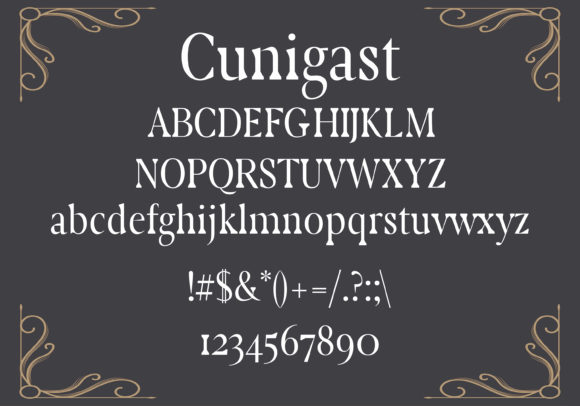
Cunigast Font: Elevate Your Designs with a Bold, Vintage Flair
Cunigast is a bold, vintage-styled display font that is making waves in the design community. This dazzling display font has the power to turn any creative idea into a standout, making it a must-have for designers and crafters looking to add a touch of elegance and sophistication to their work.
What is Cunigast Font?
Cunigast is a carefully crafted display font that embodies the essence of vintage typography. With its bold and eye-catching design, this font is perfect for creating stunning headlines, titles, and captions that demand attention. Its unique blend of classic and modern elements makes it an excellent choice for designers seeking to add a touch of nostalgia to their work.
Key Features of Cunigast Font
- Bold and Eye-Catching Design: Cunigast font boasts a bold and striking design that is sure to grab attention.
- Vintage Inspiration: This font draws inspiration from classic typography, making it perfect for designs that require a touch of nostalgia.
- Highly Versatile: Cunigast font can be used for a wide range of design projects, from branding and advertising to packaging and digital media.
- Easy to Read: Despite its bold design, Cunigast font remains highly legible, making it perfect for use in titles, headings, and captions.
Uses of Cunigast Font
Cunigast font is an incredibly versatile typeface that can be used in a variety of design projects. Here are some of the most popular uses of this stunning font:
- Branding and Logo Design: Cunigast font is perfect for creating bold and eye-catching logos that make a lasting impression.
- Advertising and Marketing: This font is ideal for creating attention-grabbing headlines and titles that drive engagement.
- Packaging Design: Cunigast font can be used to create stunning packaging designs that stand out on store shelves.
- Digital Media: This font is perfect for use in digital media, including social media graphics, blog posts, and website headers.
Why Choose Cunigast Font?
With so many fonts available, why choose Cunigast? Here are just a few reasons why this font stands out from the crowd:
- Unique Design: Cunigast font boasts a unique and distinctive design that sets it apart from other fonts.
- High-Quality Typography: This font is carefully crafted to ensure high-quality typography that is both legible and visually appealing.
Tips for Using Cunigast Font
Here are a few tips for getting the most out of Cunigast font:
- Use it Sparingly: Cunigast font is bold and eye-catching, so use it sparingly to avoid overwhelming your design.
- Pair it with Other Fonts: This font pairs well with a variety of other fonts, so experiment with different combinations to find the perfect look.
- Experiment with Colors: Cunigast font looks great in a variety of colors, so don’t be afraid to experiment and find the perfect hue for your design.
Cunigast font is a bold, vintage-styled display font that is perfect for designers and crafters looking to add a touch of elegance and sophistication to their work. With its unique design, high-quality typography, and ease of use, this font is sure to become a staple in any designer’s toolkit. Whether you’re creating branding and logos, advertising and marketing materials, or packaging and digital media, Cunigast font is the perfect choice.